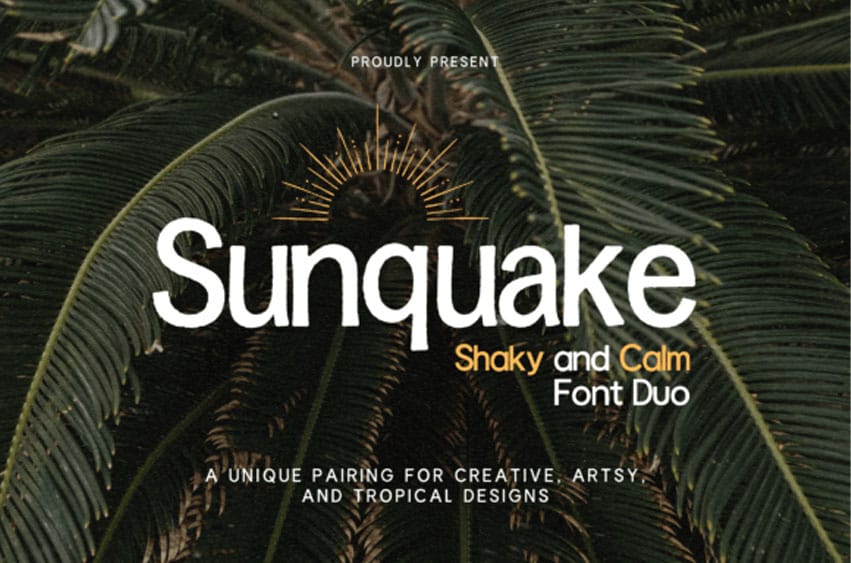
Sunquake Font Duo: Shaky Display & Calm Sans Serif. A Unique Pairing for Creative, Artsy, and Tropical Designs
Sunquake Font Duo combines the playful and organic charm of “Sunquake” with the sleek, modern functionality of “Sunquake Calm.” Together, they create the perfect combination for any project that demands personality and readability. Whether you’re designing a tropical brand identity, a vintage-inspired poster, or a minimalist website, this duo brings both creative freedom and balance to your design toolkit.
**Perfect For:**
* **Branding & Logos** – Make a statement with bold headers and matching clean typography.
* **Posters & Flyers** – The perfect balance of creative flair and legibility.
* **Packaging** – Clean and modern for product labels with a tropical, artistic touch.
* **Web & Social Media** – Use in headings, subheadings, or call-to-action buttons for unique style.
**Font Features:**
* **Sunquake**:
* Shaky, distorted style with irregular strokes for a handmade, vintage feel.
* Perfect for headlines, logos, and bold statements.
* Includes alternate characters with unique swashes and ligatures.
* **Sunquake Calm**:
* Geometric, sans-serif with soft, rounded terminals and even stroke width.
* Designed for body text, subheadings, or captions in print and digital formats.
* Pairs beautifully with Sunquake for harmonious visual compositions.
**Why You’ll Love It:**
* **Playful yet Professional** – Sunquake gives your design the boldness it needs, while Sunquake Calm ensures readability.
* **Versatile** – Use together or separately. Great for any creative project.
* **High-Quality** – Carefully crafted with attention to detail to ensure consistent aesthetics across all characters.
* **OpenType Features** – Includes a set of stylistic alternates and ligatures for added customization.